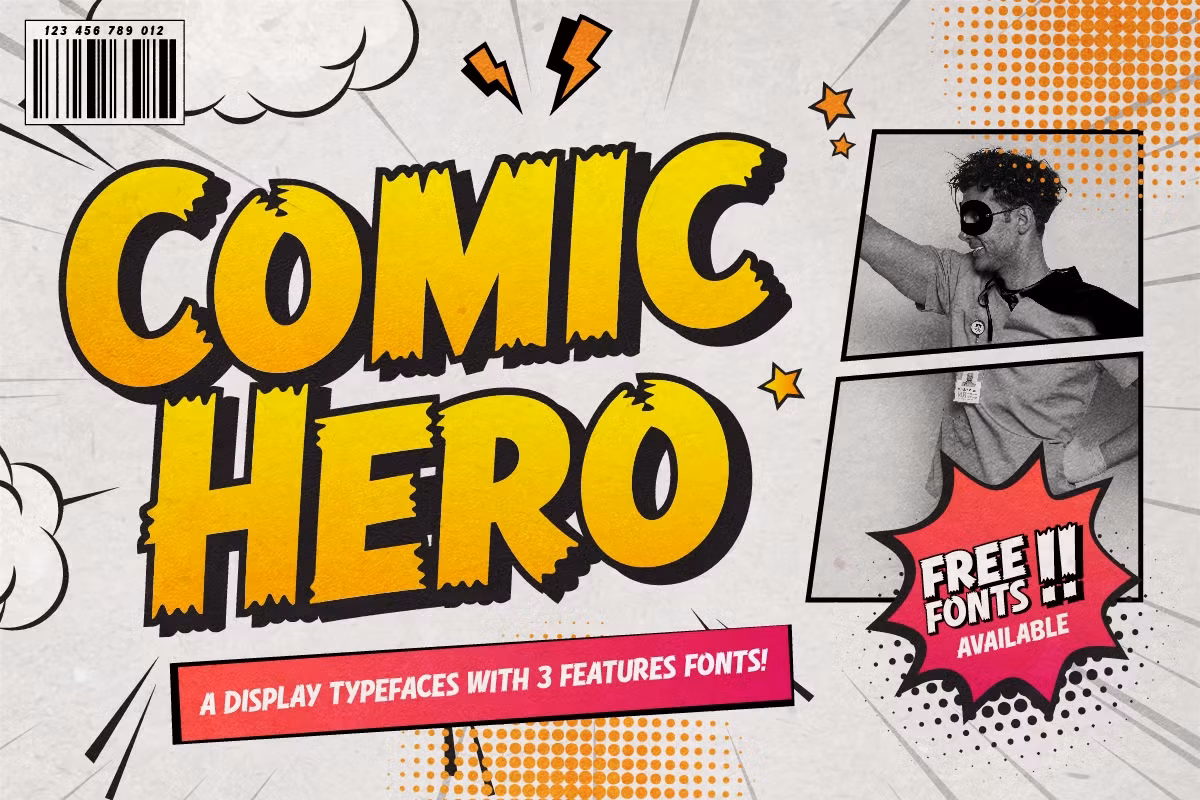
Comic Hero - Cartoon Typeface Free Download
Comic Hero - Cartoon Typeface Free Download is a fun, playful font designed to bring a burst of energy to your designs. Perfect for comic books, posters, logos, and any project that needs a bold and expressive style, this font captures the spirit of cartoons and graphic novels. With its unique, dynamic letterforms, Comic Hero adds personality and excitement to your creative work.